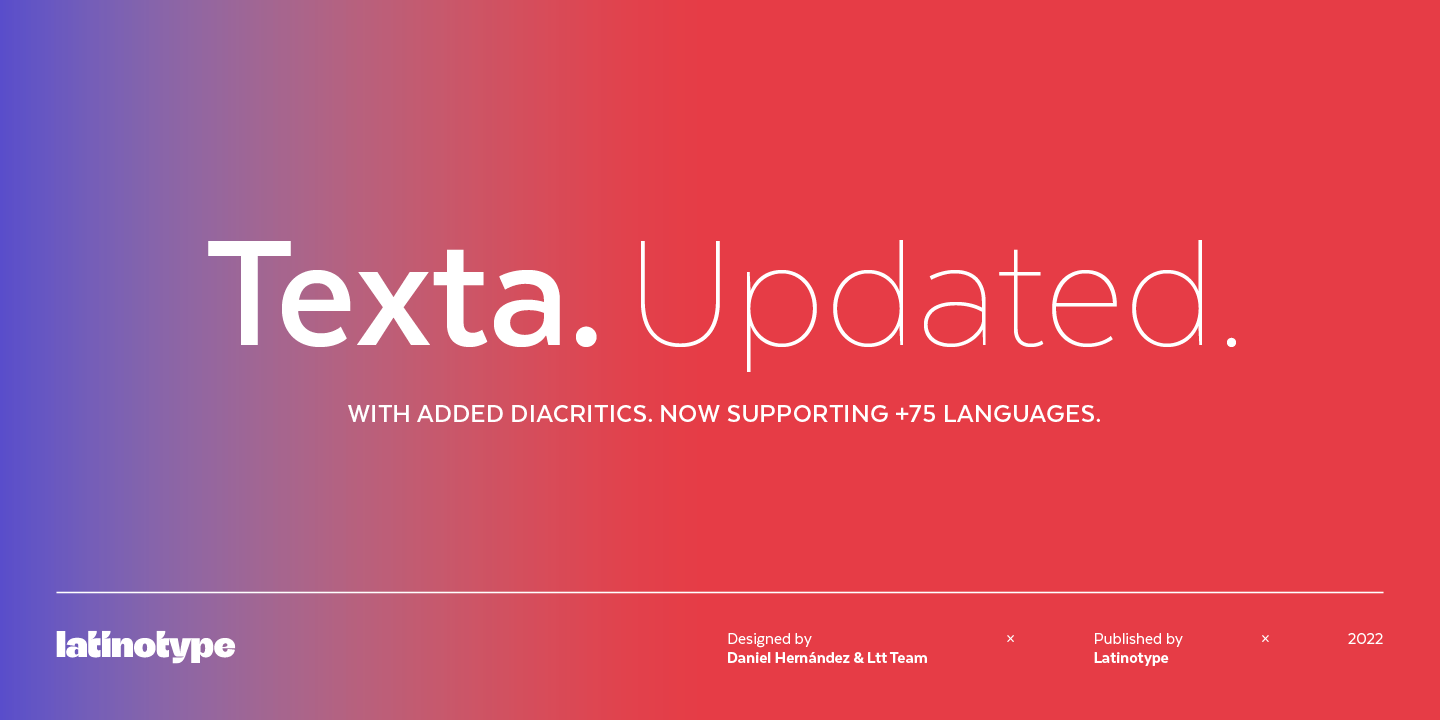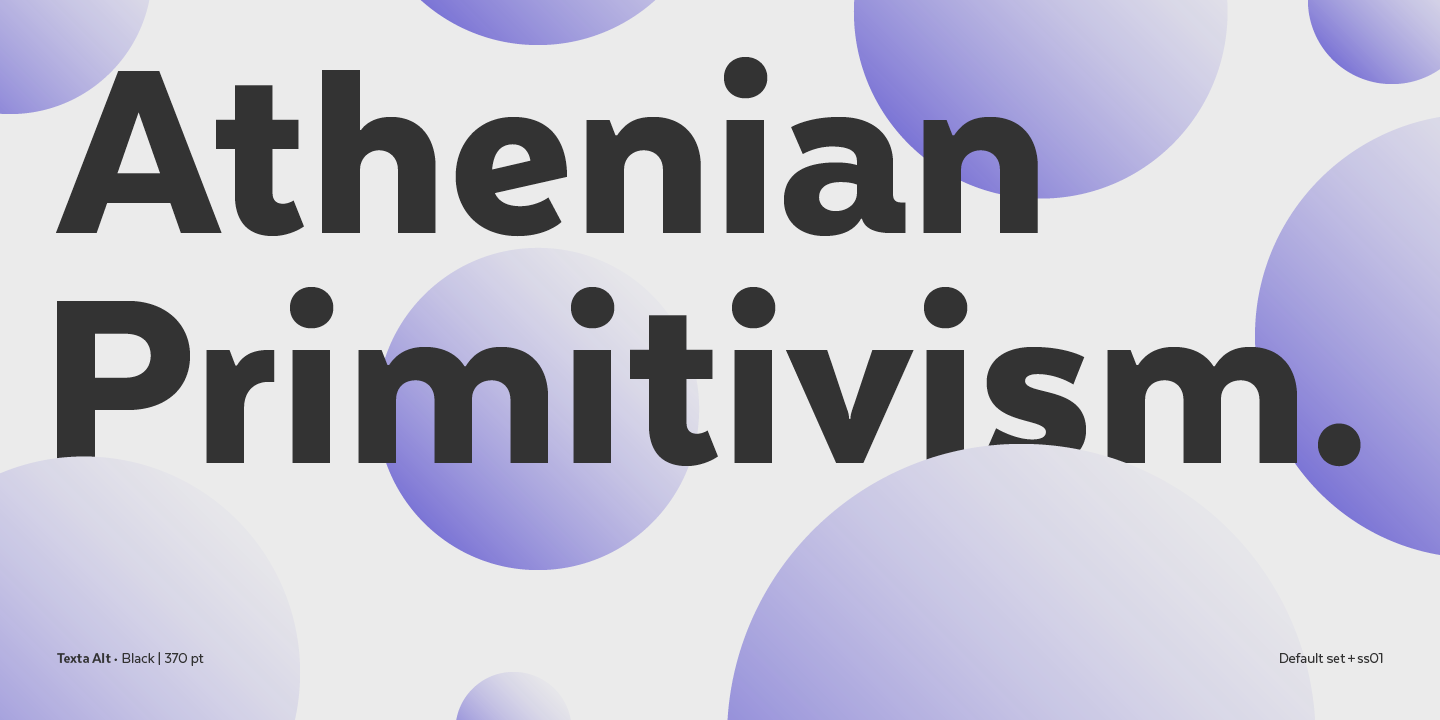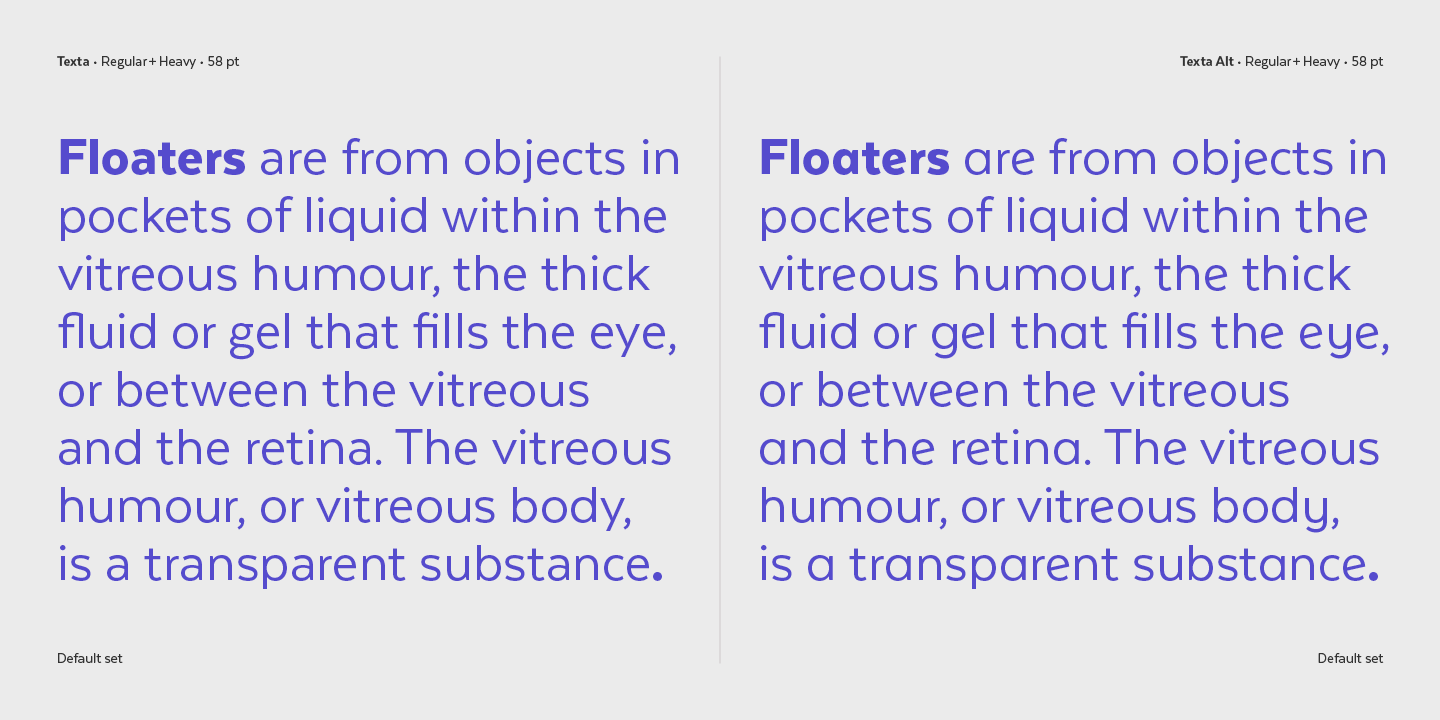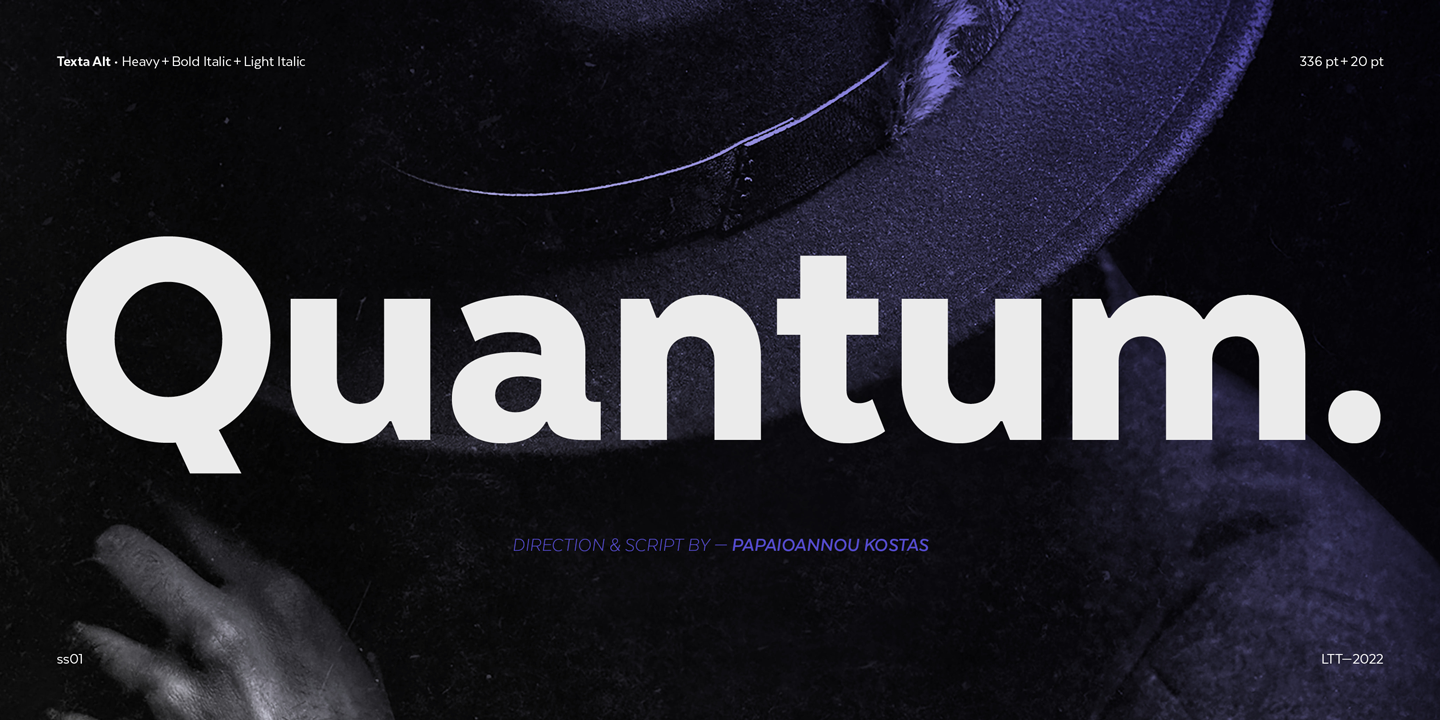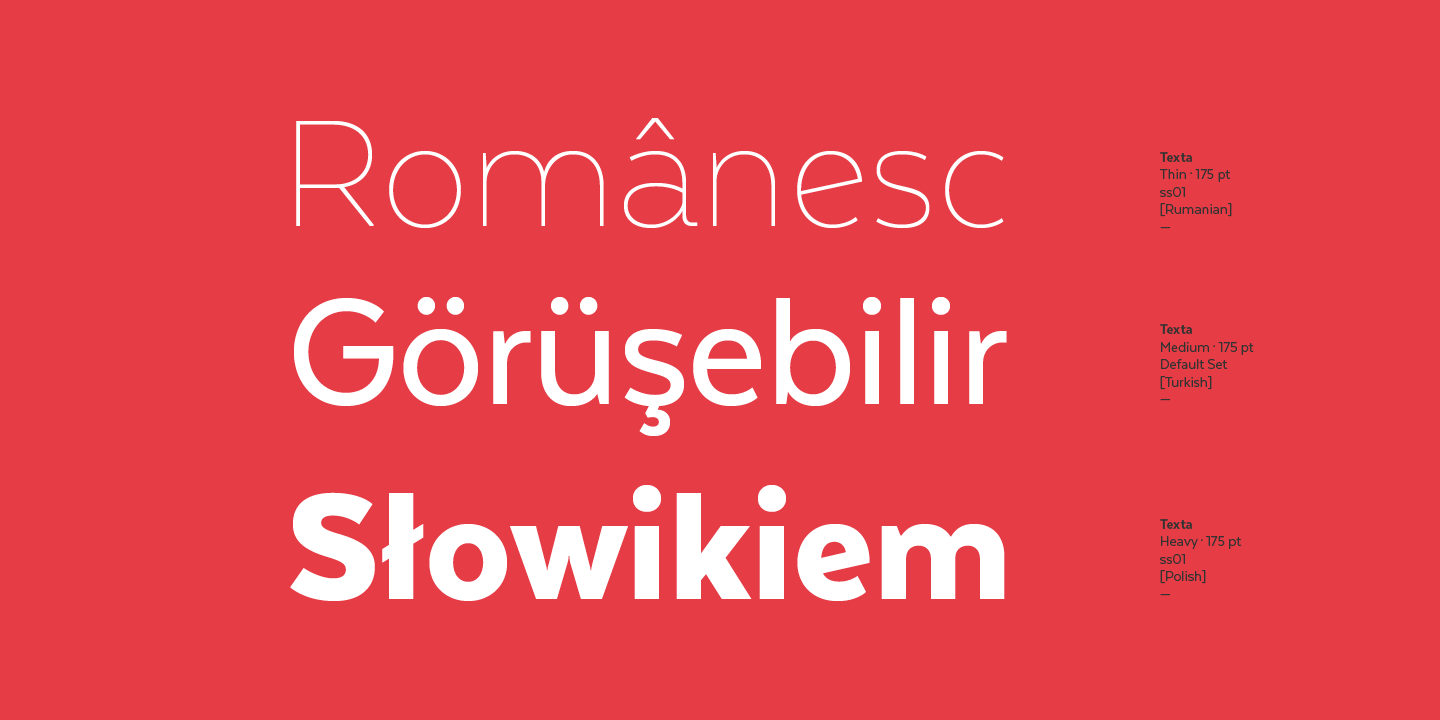
Texta Complete Family (32 fonts)
Through studying humanists' models from Edward Johnston to Adrian Frutiger and the Gothic Alphabet made by sign painters comes Texta, a contemporary, rational, transparent and useful Sans to compose all kind of texts. We incorporated an Alt version that replaces lower cases like a-g-y with geometric constructions to get more versatility in neutral compositions.
Designed by Daniel Hernández Sánchez & Miguel Hernández Montoya ©2014.